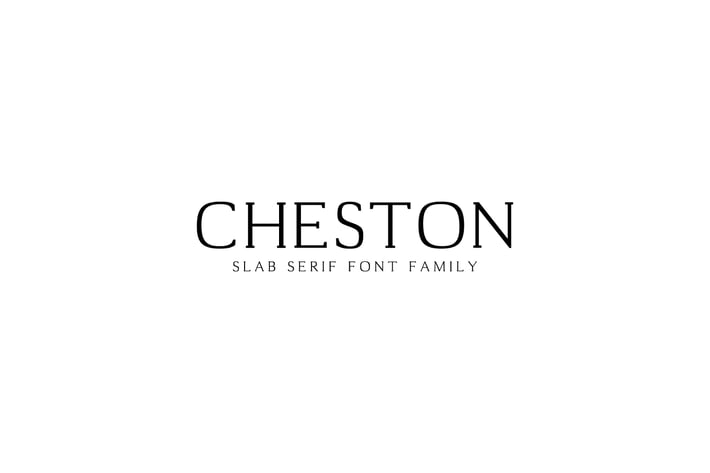
Cheston Slab Serif Font Family Set
Cheston Slab Serif Font Family is a set of 5 weights and it is good for making creative displays. It’s a lovely and unique slab serif font in our store, allowing you to make each word look completely stylish!
It Suits best for modern / clean designs, logos, headlines, decoration, banners and templates etc. It looks gorgeous in all caps with a wide-set spacing if you want to try a classy look, or beautiful on its own in capital and lowercase letters for something completely timeless.
- Regular, Light, Bold and Black Weight
Cheston Font Features:
- Uppercase Multilingual Letters
- Lowercase Multilingual Letters
- Non English Characters ( Latin Supplement + Latin Extended A )